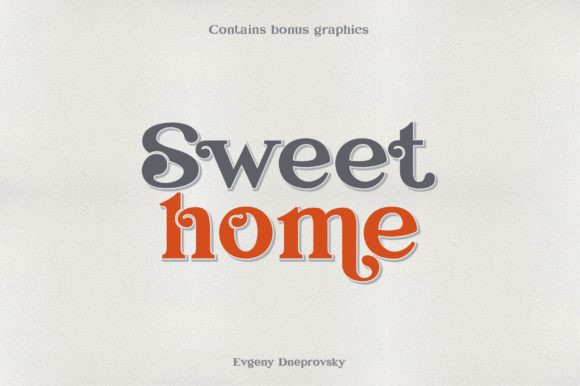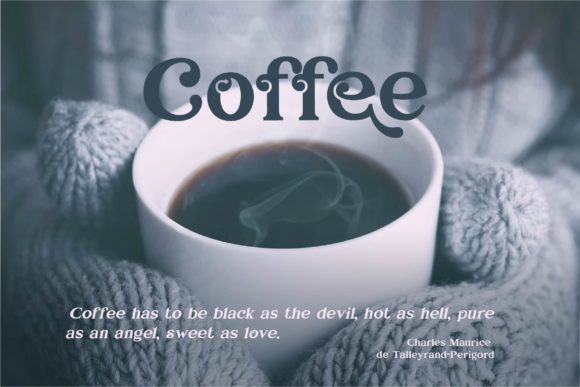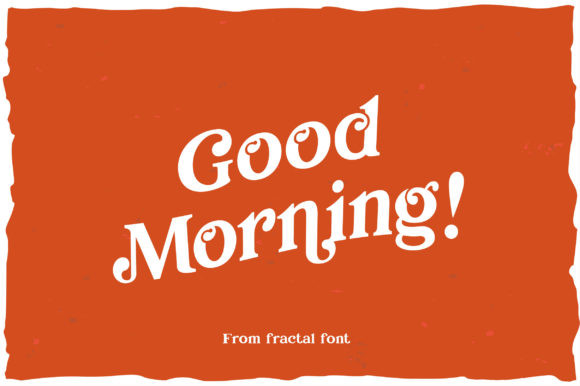
Sweet Home Font
Sweet Home is a bold and distinct serif font. Whether you’re using it for crafting, digital designing, presentations or greeting cards making, it’s perfect!